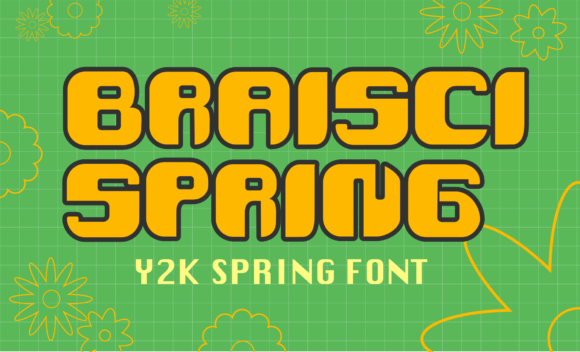
Journey into the world of Braisci Spring, a display font that will revolutionize your creative endeavors. Its bold and distinctive glyphs are meticulously crafted to elevate your designs, making them stand out from the ordinary. Whether you're crafting captivating games, designing eye-catching posters, creating heartfelt greeting cards, or producing blockbuster movie titles, Braisci Spring is your ultimate font companion.
Unleash your creativity and embark on a typographic adventure with Braisci Spring. Its Y2K aesthetic evokes a sense of nostalgia, transporting you back to a time of vibrant self-expression. The boldness of its characters ensures your message cuts through the noise, leaving an indelible mark on your audience.
With Braisci Spring, you'll discover a font that's as versatile as it is visually stunning. Its boundless applications make it the perfect choice for any project you can dream up. From highlights that demand attention to headers that command respect, Braisci Spring is your go-to font for making a statement.
Don't settle for ordinary fonts that blend into the background. Choose Braisci Spring, the font that ignites your imagination and propels your designs to new heights. Its unique charm and captivating presence will leave an unforgettable impression on your audience, ensuring your message resonates and your creations shine.
Embrace the beauty of Braisci Spring and unlock a world of creative possibilities. Its bold strokes and Y2K charm will transform your designs into works of art. Download Braisci Spring today and let your creativity soar!